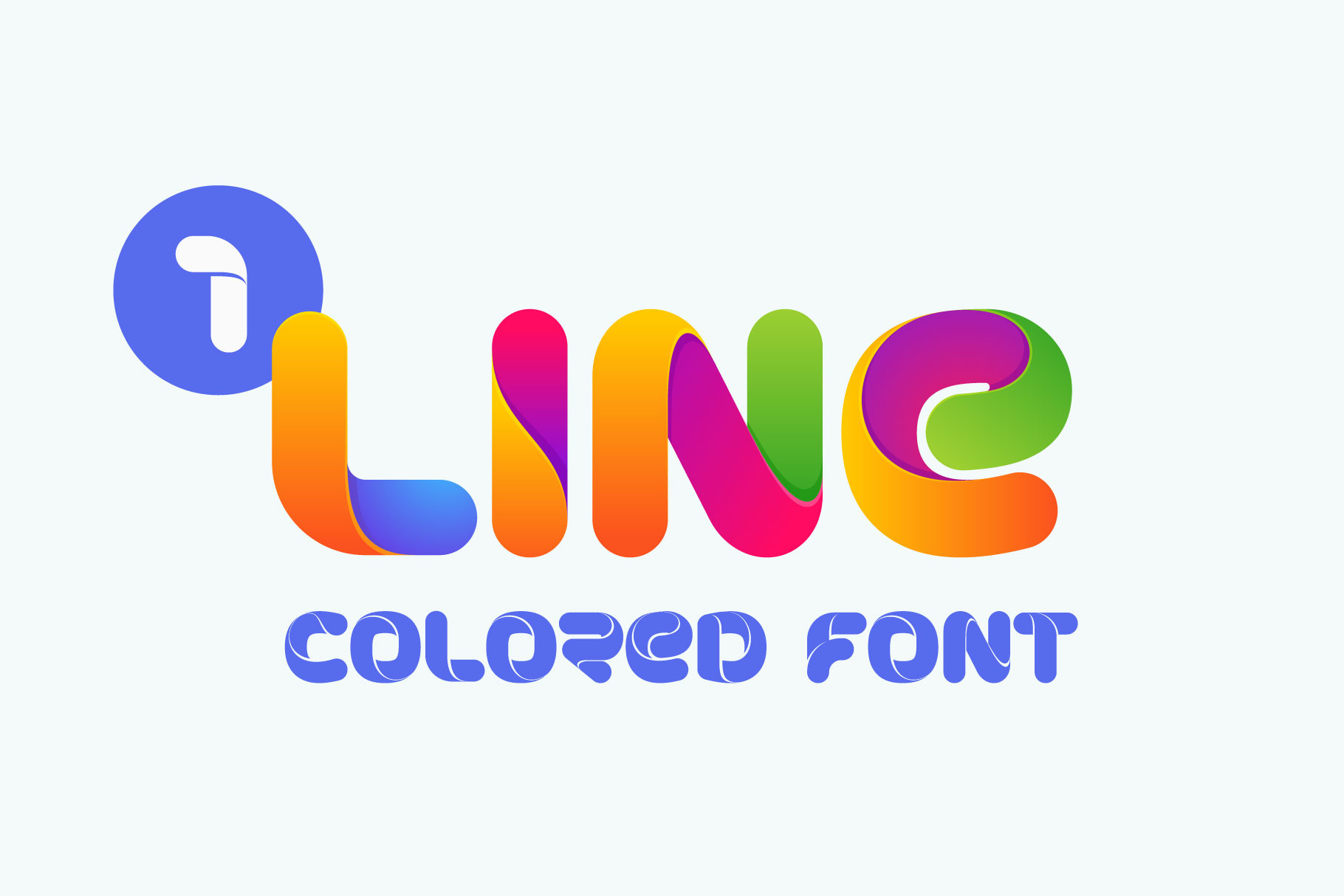
Hey guys! Wow! I've updated my first font OneLine Bold! There are few minor changes in lines and colors and I've added: numbers, symbols and punctuation glyphs. The letters from this font are drawn with only one line and then brightly colored. This font has happened to be created only thanks to the @Fontself team.
- Bold Colored style
- Bold style
- Uppercase only (lowercase glyphs are same)